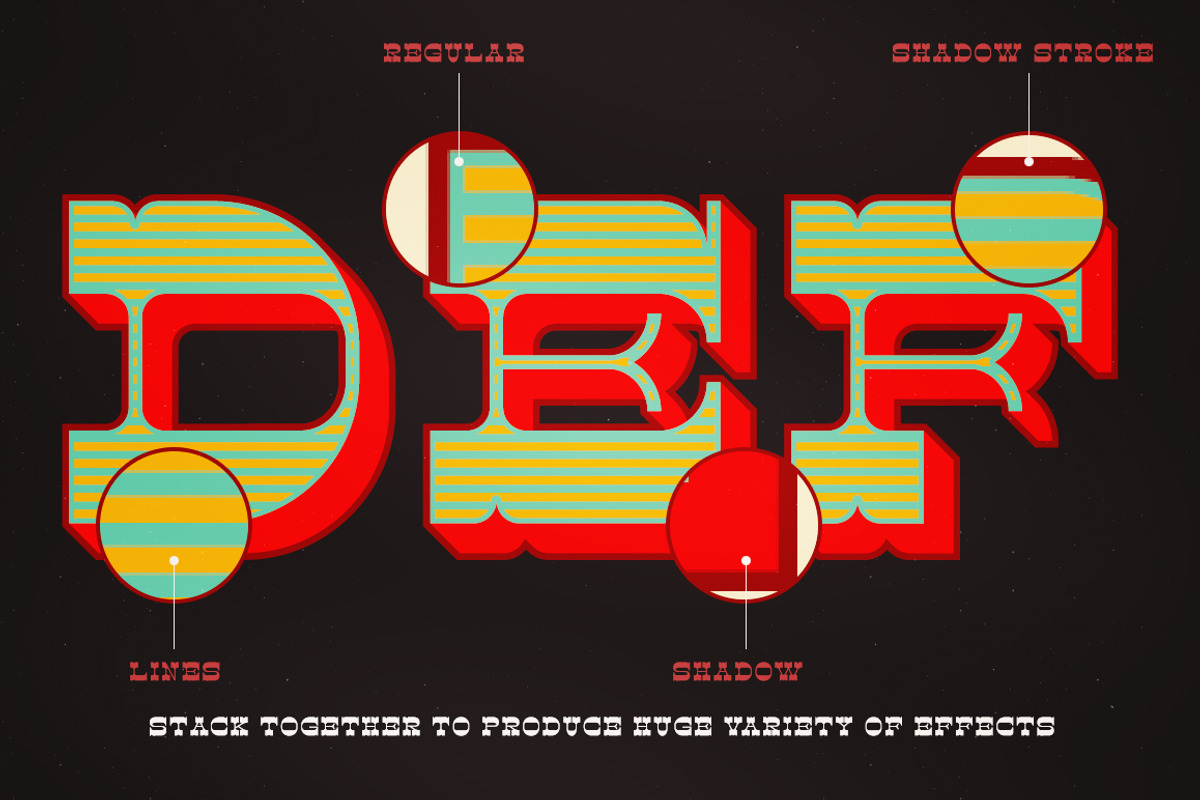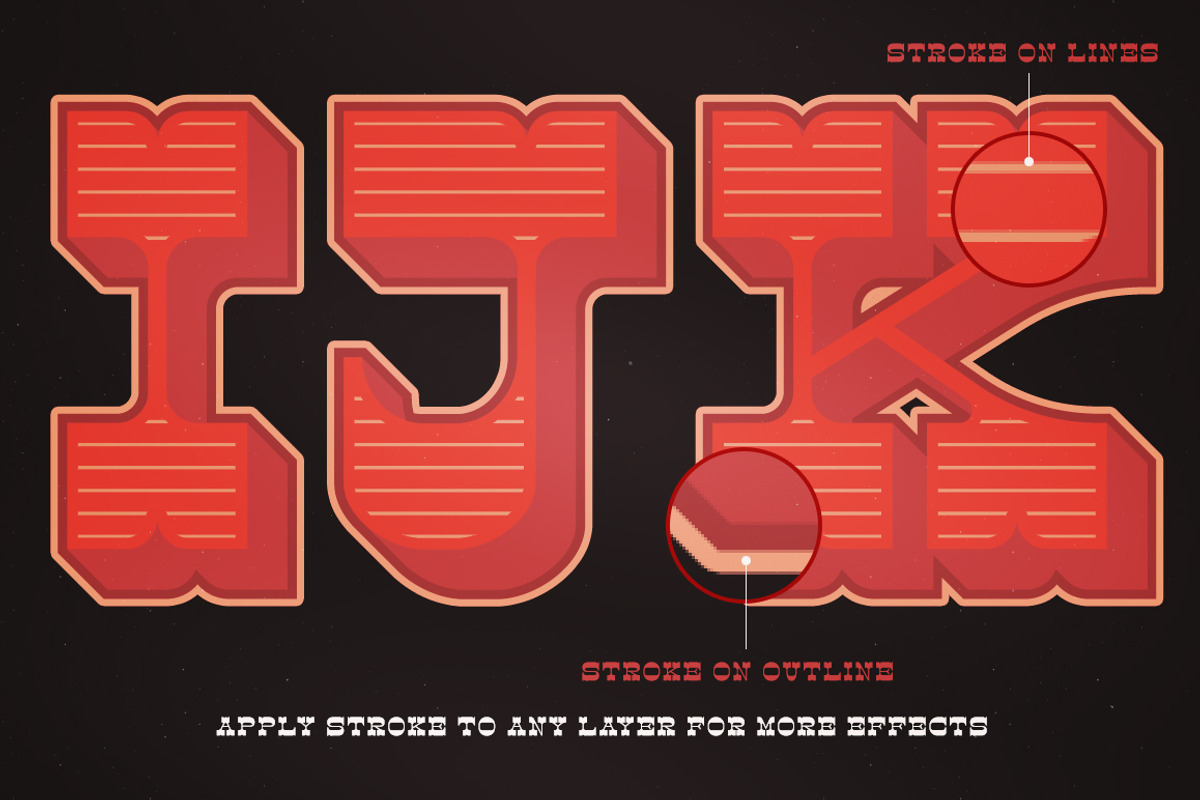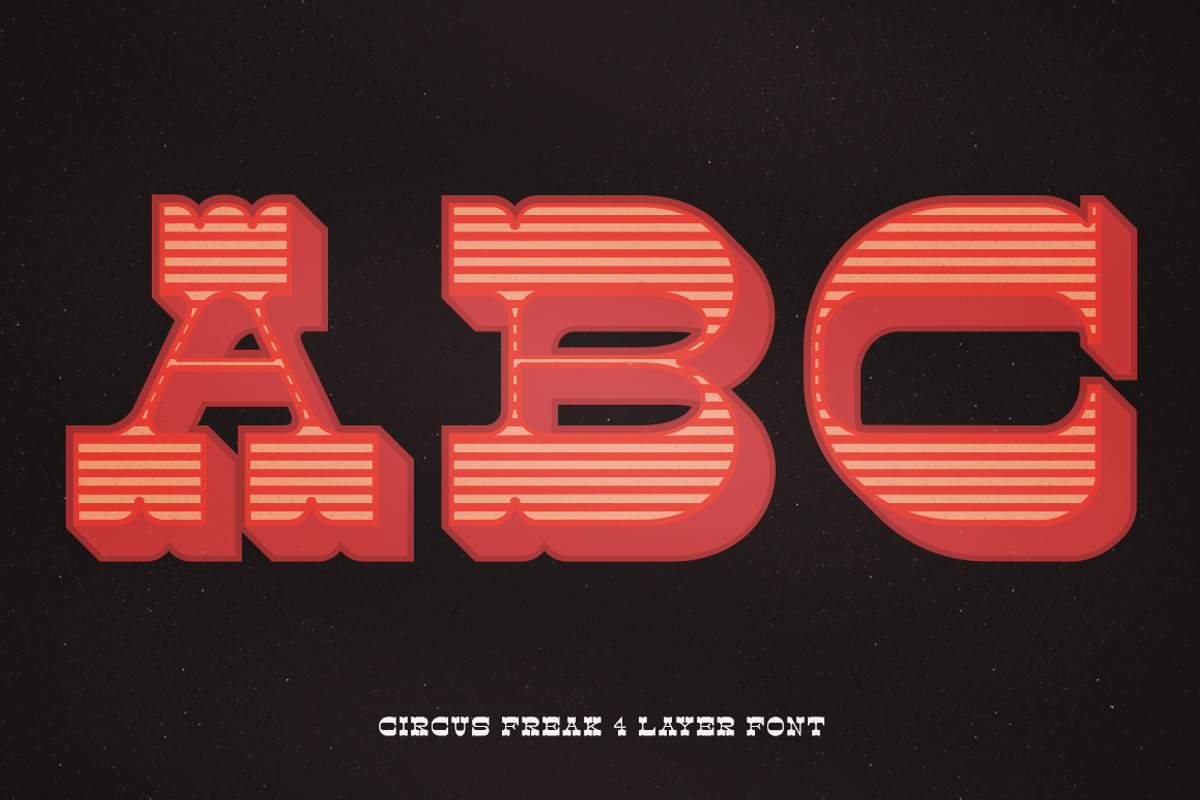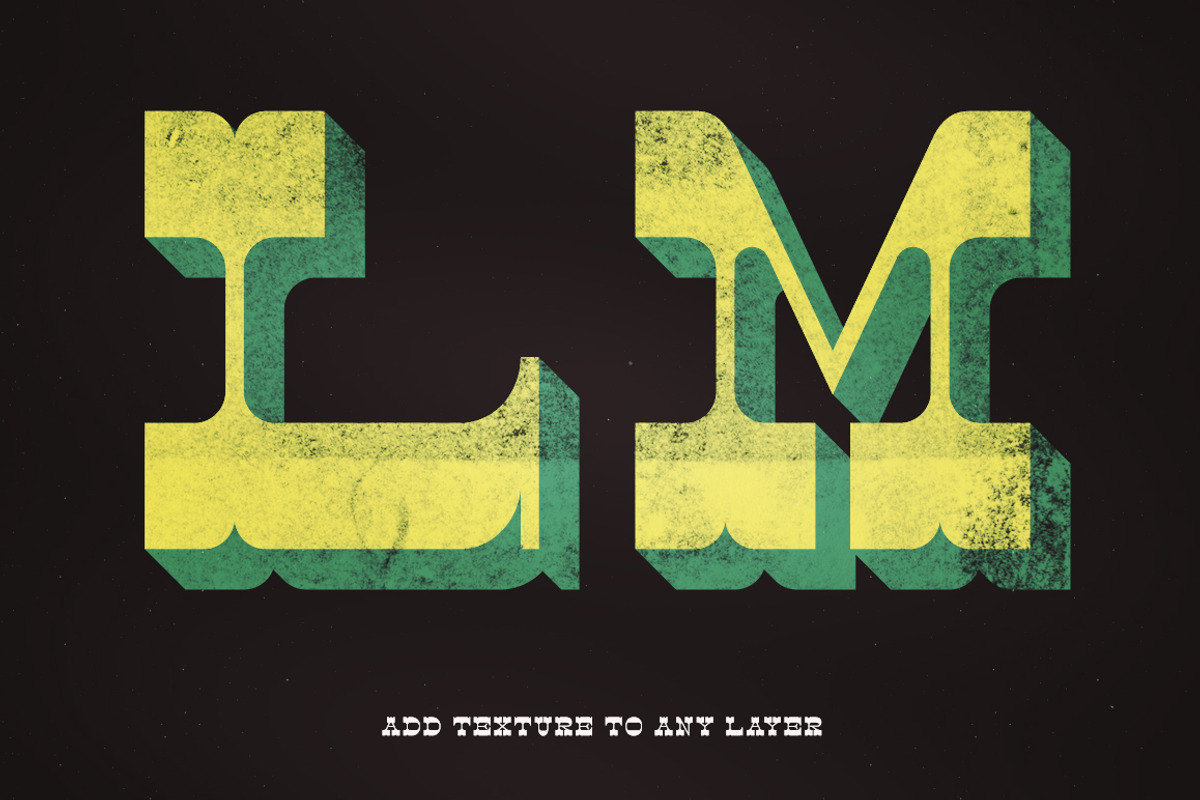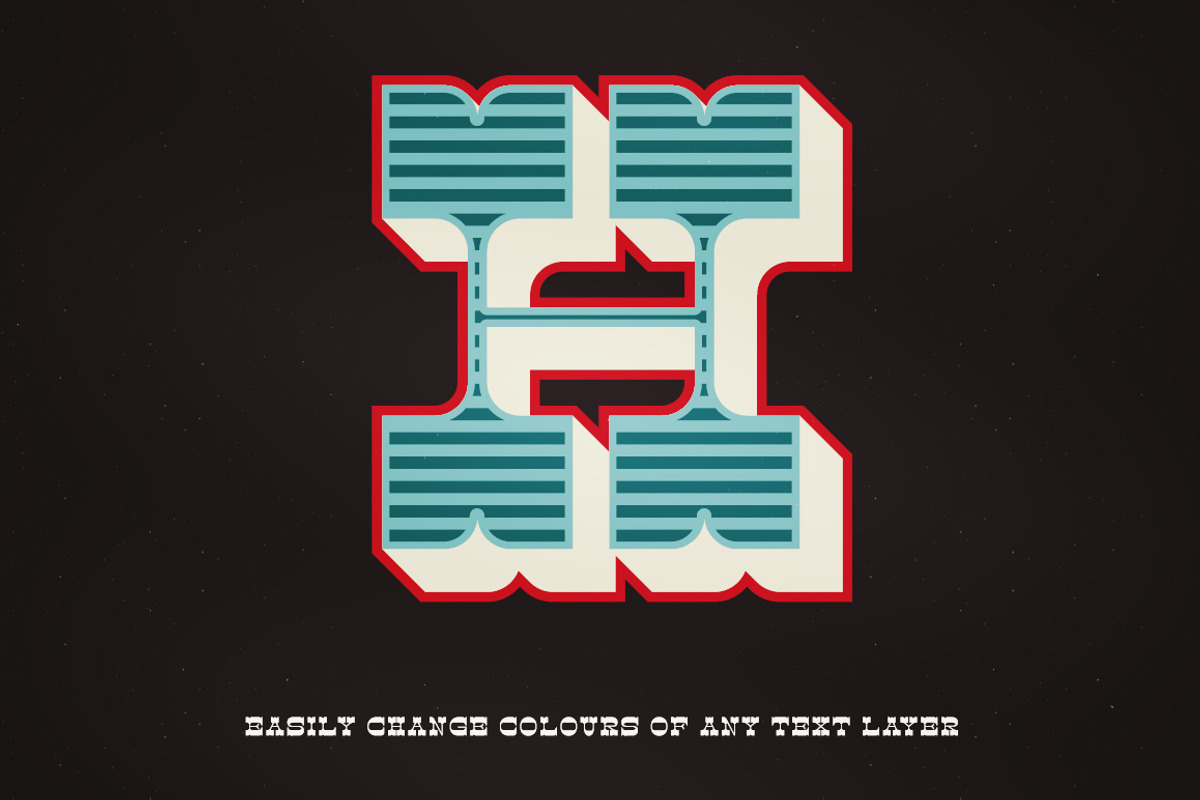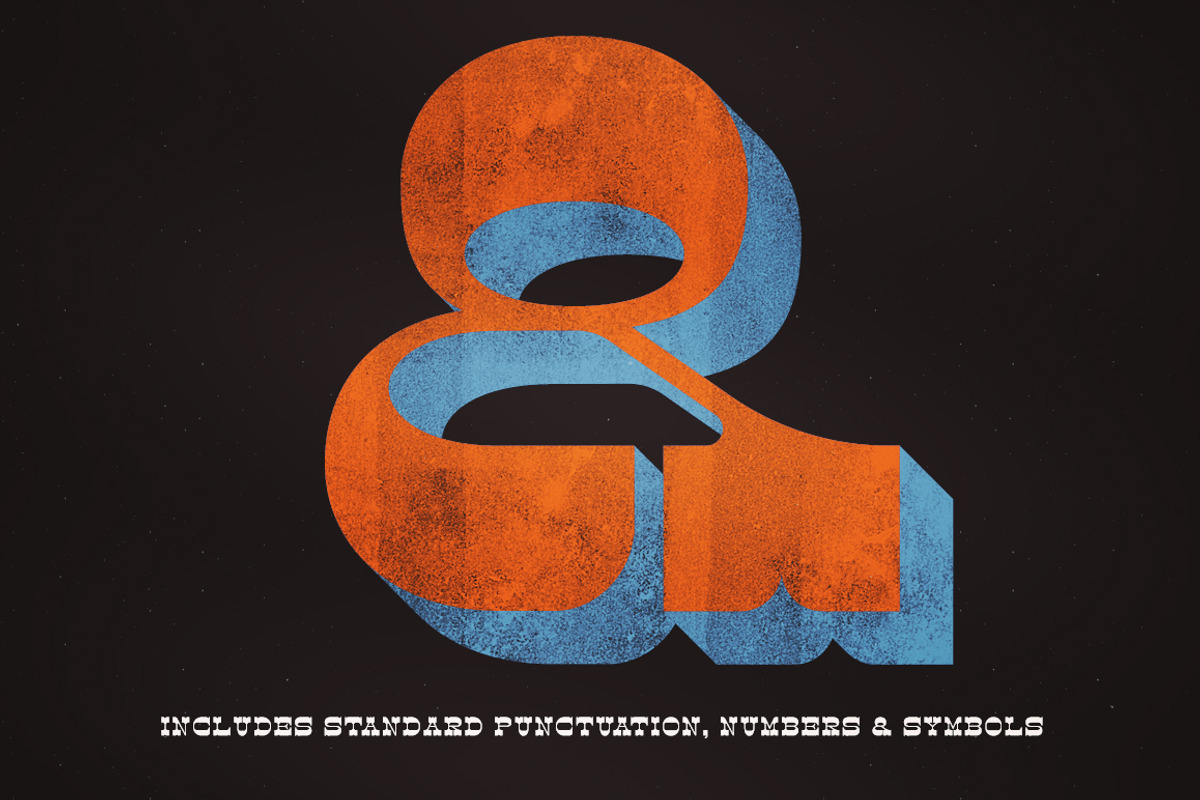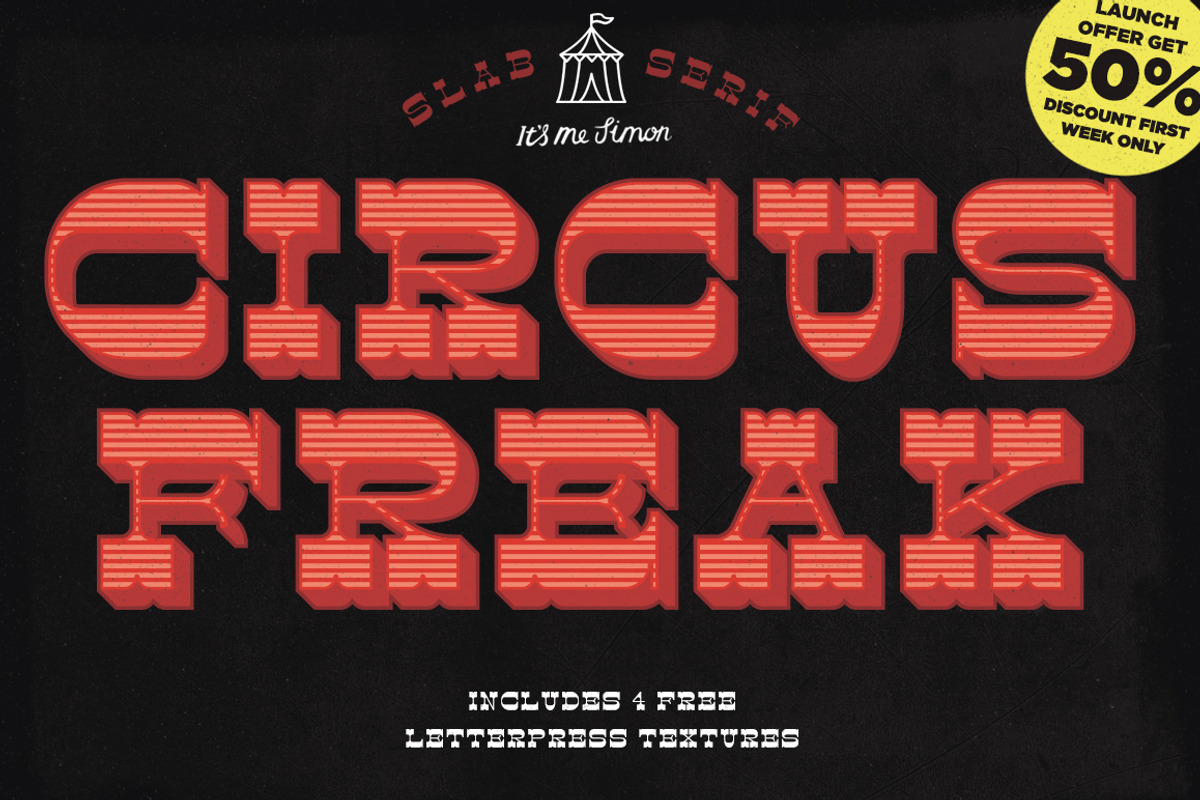
Slab Serif font Circus Freak
Slab Serif font Circus Freak by Itsmesimon is a font selected for branding, posters, packaging, typography.
- It includes language support for eastern, central and western European countries, in total it has 345 glyphs.
- The font includes Uppercase characters only Numbers and punctuation Symbols Support for Eastern, Central and Western European languages 4 Di
- Circus Freak Regular
- Circus Freak Lines
- Circus Freak Shadow
- Circus Freak Shadow Stroke
Why Slab Serif font Circus Freak is worth a look
Slab Serif font Circus Freak by Itsmesimon fits naturally into Branding, posters, packaging, typography.